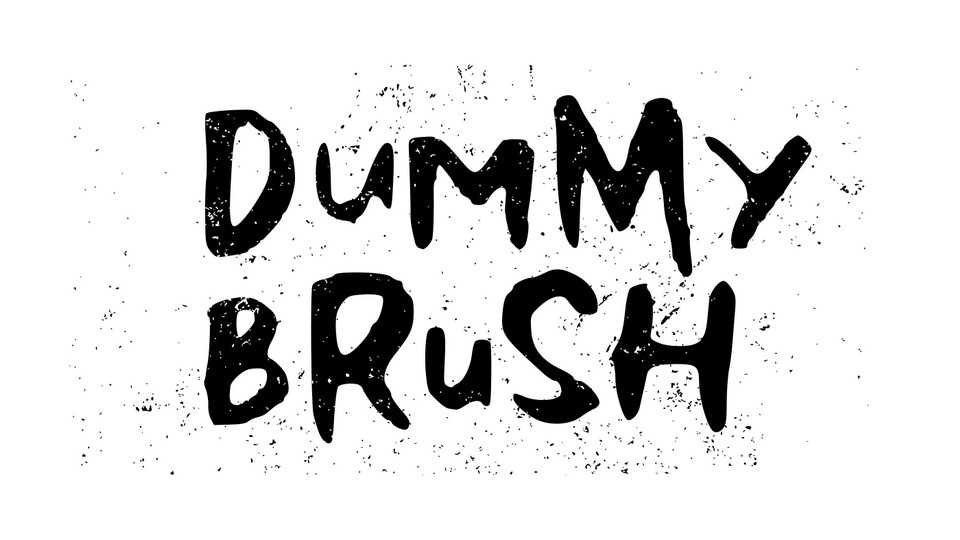
Download Dummy Brush font, an irregular hand painted inky brush typeface. Dummy Brush is perfect for craft projects, poster, t-shirt prints and grungy design.
Designer: Joe Letter